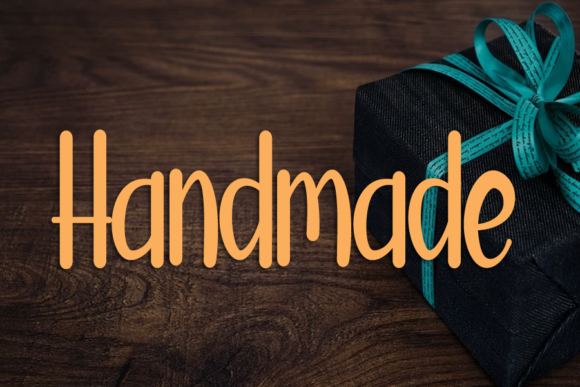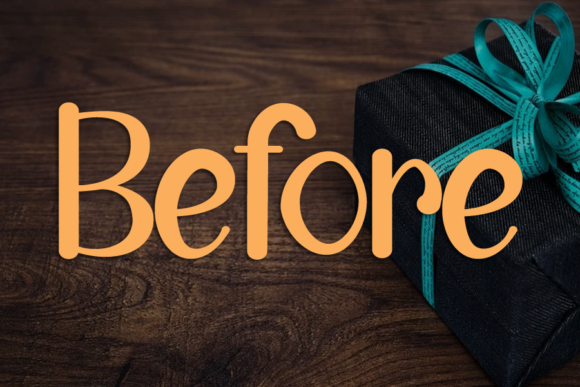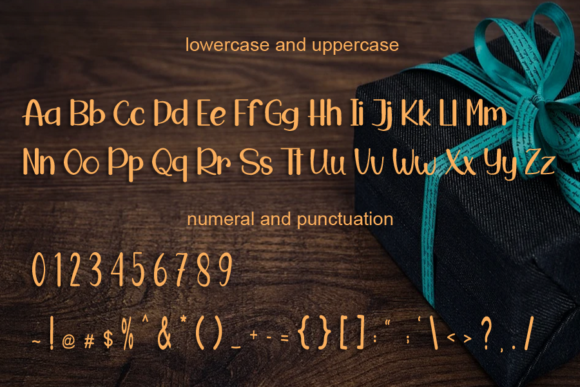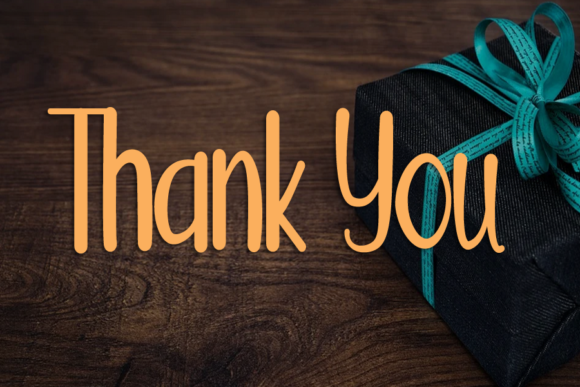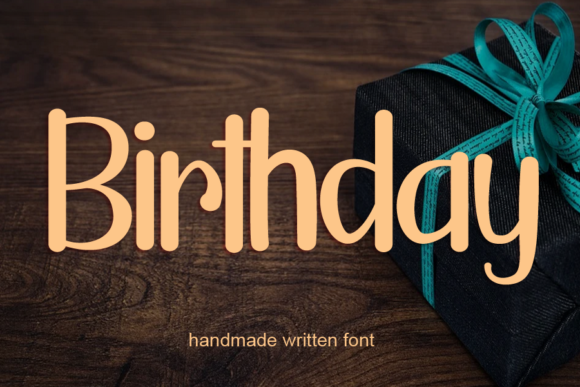
The Birth of a Beautiful Font: A Designer’s Delight
I’ll never forget the moment I stumbled upon the perfect font for a wedding invitation project. I had been searching for what felt like hours, scrolling through font after font, but nothing seemed quite right. That was until I discovered **Birthday Font**, a thin lettered and simple handwritten script font that stole my heart. In this article, I’ll share my love for this beautiful font, its features, and how to make the most of it in your designs.
An Honest Review of Birthday Font
- ✨ Its elegant and delicate appearance makes it perfect for wedding invitations, stationery, and social media posts.
- ✅ The font is highly versatile and can be used for a variety of design projects, from formal to informal.
- 💫 Its simple and clean design ensures that it pairs well with a wide range of other fonts and design elements.
While Birthday Font is a stunning font, there are a few things to keep in mind:
- ⚠️ As a thin lettered font, it may not be the best choice for designs that require bold text.
- 🤔 Some users may find that the font’s simplicity can make it appear a bit bland if not paired with other design elements.
The Designer Inspiration Behind Birthday Font
While the true story behind Birthday Font’s creation may be unknown, it’s easy to imagine that the designer was inspired by the elegance and simplicity of handwritten scripts. Perhaps they wanted to create a font that would evoke feelings of joy and celebration, perfect for special occasions like birthdays and weddings.
| Font Name | Birthday Font |
| Author | AA studio |
| What makes Birthday Font so special? | Its elegant and delicate appearance, combined with its simplicity and versatility, make it a standout font for a variety of design projects. |
| What are some common uses for Birthday Font? | Birthday Font is perfect for wedding invitations, stationery, social media posts, and any other design project that requires an elegant and delicate touch. |